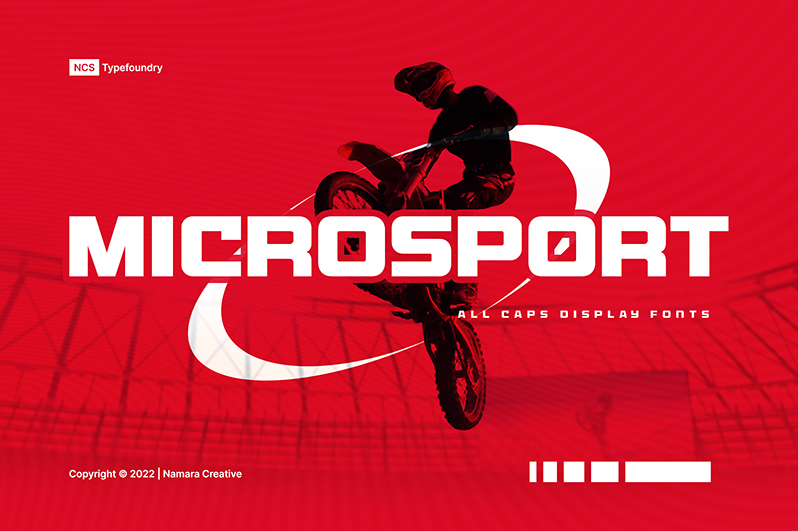
Preview and download Microsport Font. Created by Namara Creative Studio in Basic Sans serif styles with Free for personal use license.
Bring strong atmosphere in modern style for your projects. This font perfect for headline, general advertising, packaging, sport logo / branding and more. NOTE : - This font is PERSONAL USE ONLY, NO COMMERCIAL USED ALLOWED. - Link to purchase Full Version and Commercial license : https://onedsgn.com/product/microsport/ |